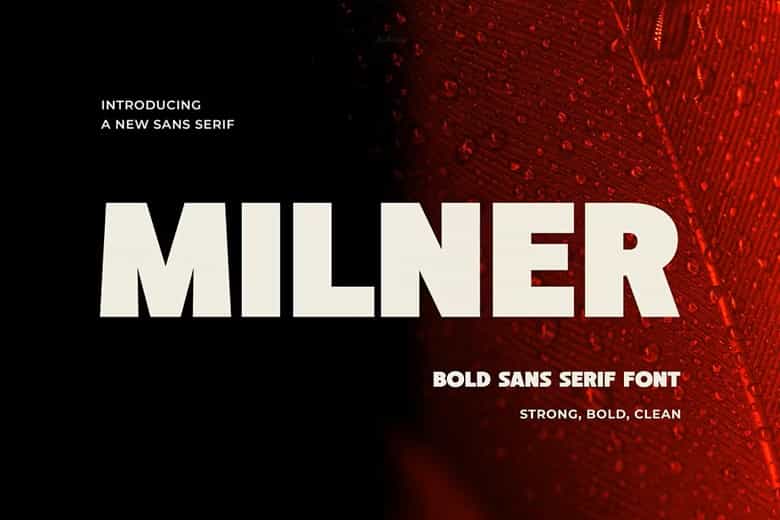
Milner is a new bold and very geometric, thoughtful modern sans serif font. Eye catching custom made this font still has a fun and retro style. The high fashion font is as close to being a multipurpose font as one can get without having the style of a Swiss Army knife.